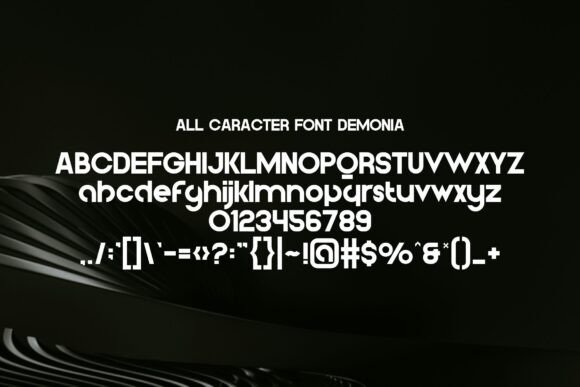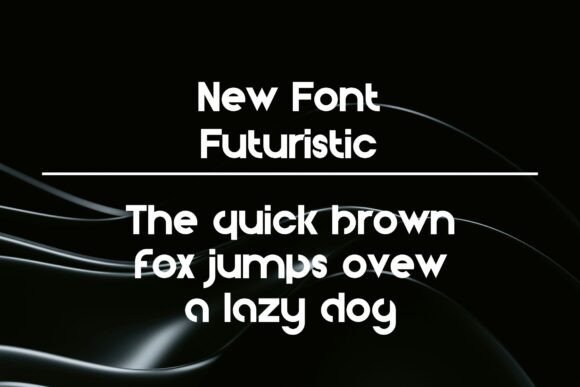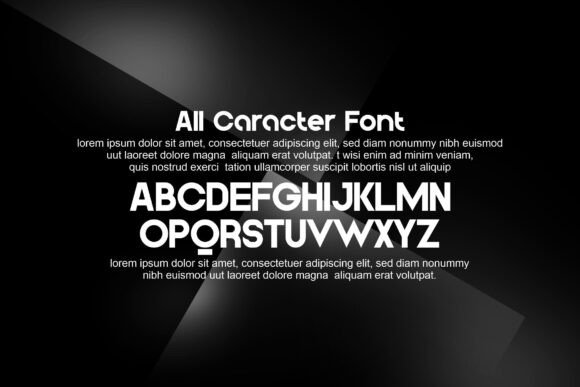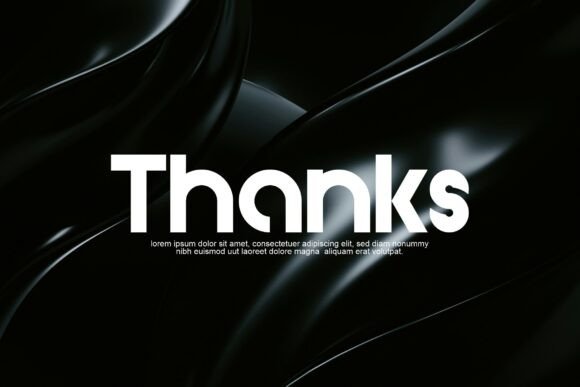
Demonia Font: A Bold and Assertive Sans Serif for Your Creative Projects
In the world of typography, fonts play a crucial role in conveying the tone and personality of a design. Whether you’re a graphic designer, a crafty DIY enthusiast, or a digital artist, finding the right font can make all the difference in elevating your creations. If you’re looking for a bold and assertive sans serif font that can add a touch of sophistication and edge to your projects, look no further than Demonia Font.
What is Demonia Font?
Demonia is a modern sans serif font that exudes confidence and strength. Its bold and assertive design makes it perfect for a wide range of applications, from branding and advertising to packaging and digital media. With its clean lines, geometric shapes, and precise curves, Demonia Font is a versatile typeface that can be used to create stunning visual effects.
Key Features of Demonia Font
- Bold and Assertive Design: Demonia Font is designed to make a statement. Its bold and assertive style is perfect for creating eye-catching headlines, titles, and captions that demand attention.
- Sans Serif Style: The font’s sans serif design gives it a clean and modern look that’s perfect for digital media, such as websites, social media, and mobile apps.
- Versatile and Flexible: Demonia Font can be used for a wide range of projects, from print materials like brochures and posters to digital media like videos and presentations.
- Easily Readable: Despite its bold design, Demonia Font is surprisingly easy to read, making it perfect for body text and longer content.
Why Choose Demonia Font?
So, why should you choose Demonia Font for your next project? Here are just a few reasons:
- Adds Edge and Sophistication: Demonia Font adds a touch of edge and sophistication to any design, making it perfect for brands and projects that want to stand out from the crowd.
- Elevates Your Creations: With its bold and assertive design, Demonia Font has the potential to elevate any creation, from a simple logo to a complex marketing campaign.
- Perfect for a Wide Range of Topics: Whether you’re working on a project related to technology, fashion, or food, Demonia Font is versatile enough to adapt to any topic or theme.
How to Use Demonia Font
Using Demonia Font is easy. Here are a few tips to get you started:
- Pair it with Other Fonts: Demonia Font pairs well with other sans serif fonts, as well as serif fonts with a bold or italic style.
- Experiment with Different Sizes: Try using Demonia Font in different sizes to create visual interest and hierarchy in your design.
- Use it for Headlines and Titles: Demonia Font is perfect for headlines and titles, but don’t be afraid to use it for body text and longer content too.
In conclusion, Demonia Font is a bold and assertive sans serif font that’s perfect for designers and crafters looking to add a touch of sophistication and edge to their creations. With its versatile design, easily readable style, and wide range of applications, Demonia Font is an incredible asset to any font library. Whether you’re working on a branding project, a digital media campaign, or a crafty DIY project, Demonia Font is sure to elevate your creations and help you stand out from the crowd.